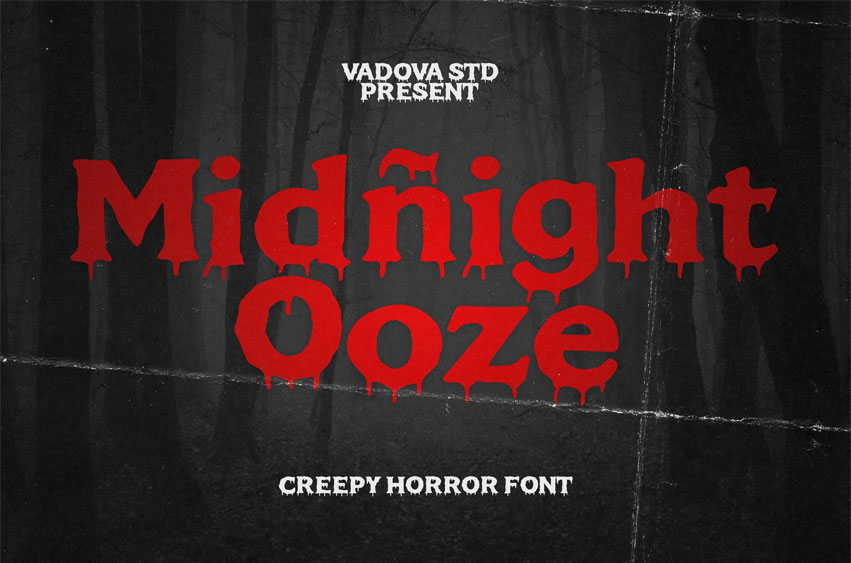
Midnight Ooze Font
Midnight Ooze Font Creepy Horror Font is a creepy horror display font that oozes with dread, perfect for eerie titles and fearsome branding. Its sharp, jagged serifs and signature dripping effect evoke a chilling, blood-curdling atmosphere ideal for Halloween posters, slasher movie titles, horror book covers, haunted attraction branding, and dark video game intros. This font combines vintage horror aesthetics with a modern typographic twist, making it both readable and menacing. Whether you’re designing for a scream-worthy event or a sinister product, Midnight Ooze delivers bone-chilling impact.
Relevance and Use Cases Midnight Ooze is perfect for horror movie posters, halloween invitations, thriller book covers, haunted house signs, creepy social media graphics, gothic apparel branding, scary game UI text, spooky event promotions, eerie YouTube thumbnails, horror podcast artwork, blood dripping merchandise, slasher film titles, horror zine headlines, mystery-themed packaging, gothic website headers, monster themed kids books, dark comic book titles, fear based marketing ads, cult horror festival branding, supernatural video intros.